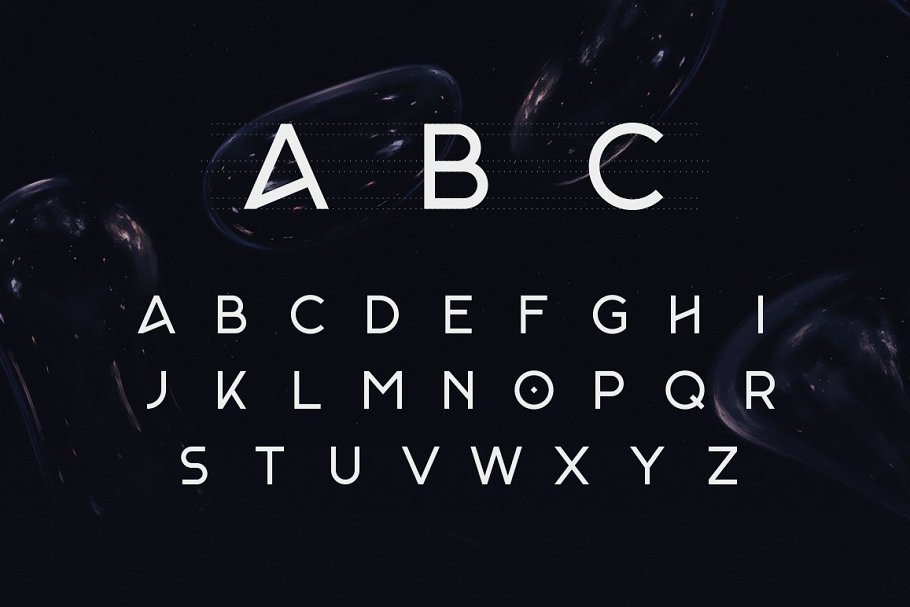
Introducing Monad Typeface - the epitome of minimalism and elegance in the world of fonts. Created by the talented Yasin Yalcin, this sans serif gem is designed to captivate and inspire. With its modern and geometrical aesthetic, Monad Typeface is the perfect choice for anyone looking to make a bold statement.
Are you searching for a font that will elevate your designs to new heights? Look no further. Monad Typeface is a must-have for those seeking a font that seamlessly blends modernity and style. Its clean lines and sleek curves make it ideal for a wide range of design purposes, including logotypes, posters, product packaging, and captivating headlines that demand attention.
Featuring a stunning collection of uppercase letters, numbers, and punctuation, Monad Typeface provides endless possibilities for your creative projects. Each character exudes a sense of sophistication and refinement, ensuring that your designs leave a lasting impression on your audience.